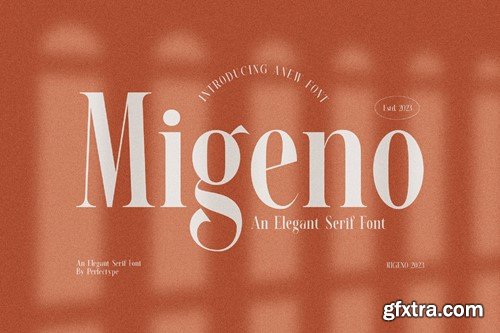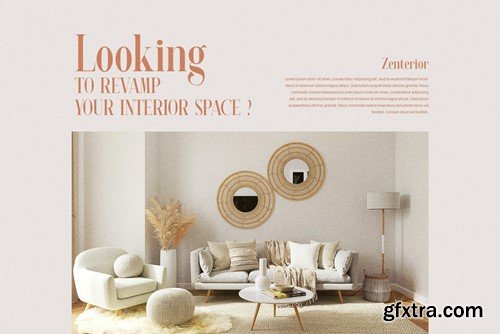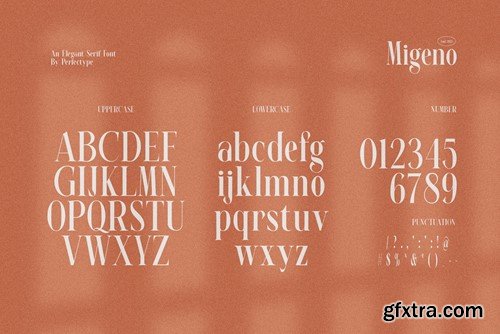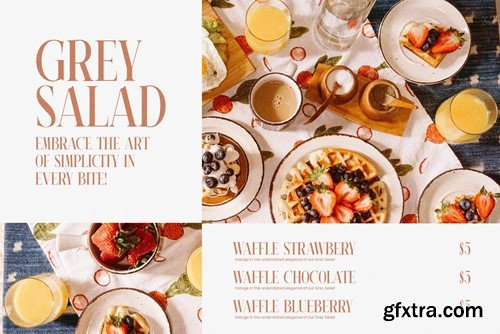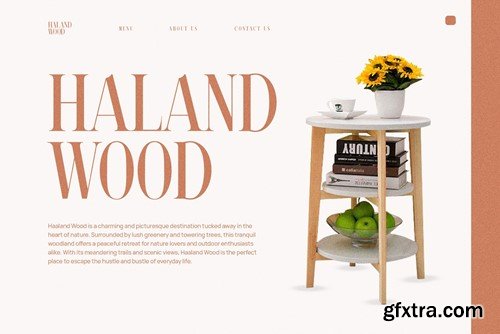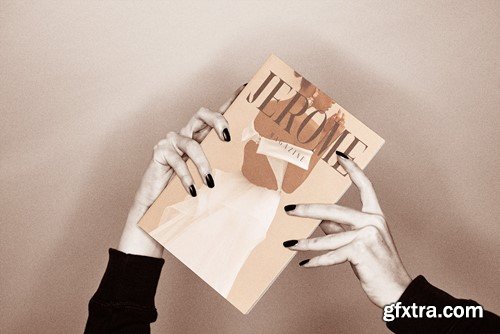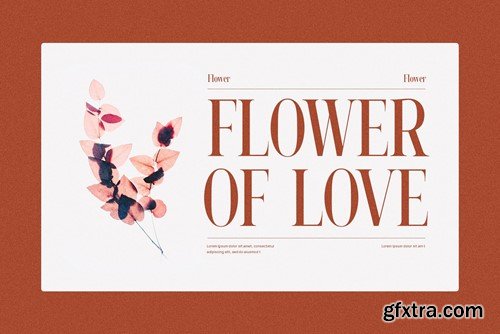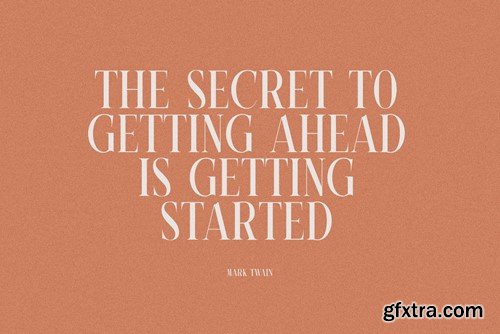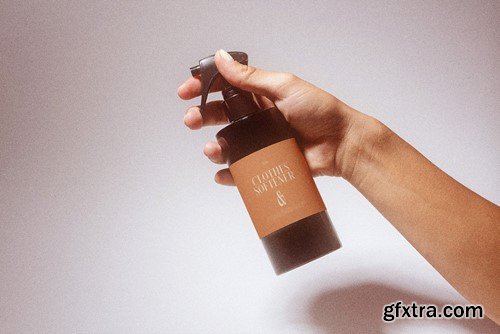
Migeno Elegant Serif 字体类型face BLG9JH3
Migeno is a unique and very elegant font for branding and logo designs Elegant serif typeface combined with a classy and modern style. This type of font is very suitable for your various needs such as branding projects, logos, wedding designs, social media posts, advertisements, product packaging, product designs, labels, photography, watermarks, invitations, stationery, and any project, created with high level of readability. you will not be disappointed if you buy this font!! What's Included: Recommended using Adobe Illustrator or Adobe Photoshop. Wish you enjoy our font and if you have any questions, don't hesitate to drop a message & I'm happy to help :)